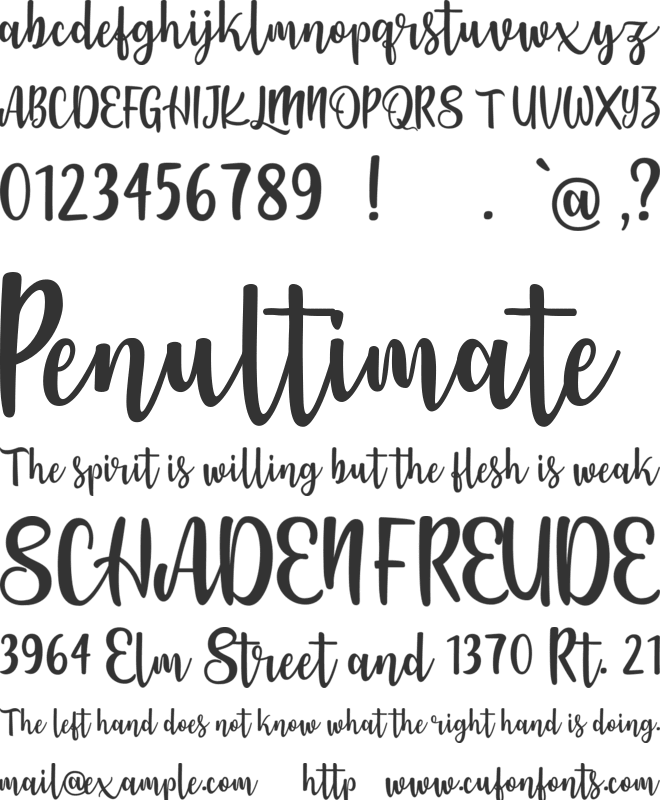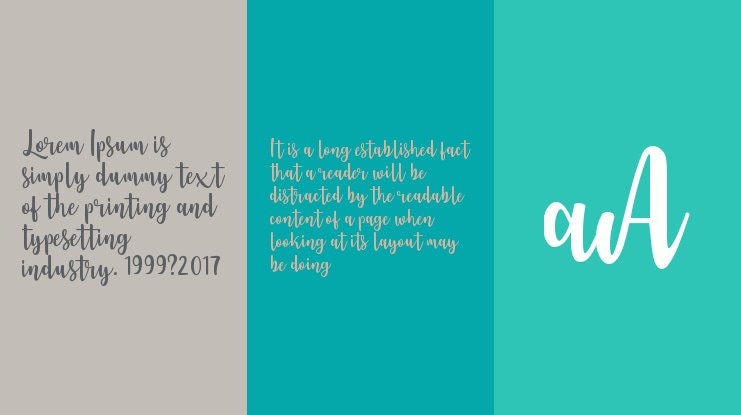
Jennifer Ellis Font
Note of the author Introducing my new font, Jeniver ellis Font made with a pen brush refined to look neat. like dance letters, smooth, clean and simple. Jeniver ellis Font are perfect for weddings, events, invitations, escort cards, table numbers, Quotes, displays, logos, blog sliders, special addresses, stamps, packaging, greeting cards, etc.